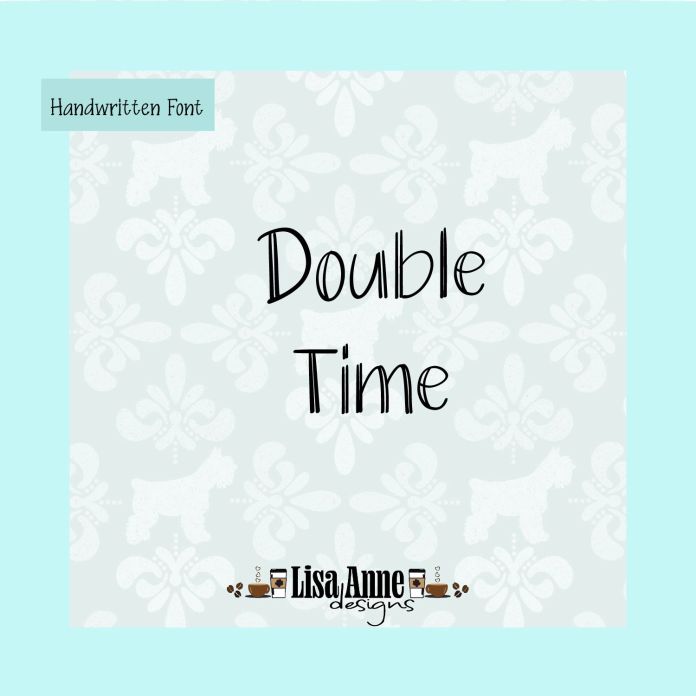
Say hello to Double Time, a fun and playful handwritten OTF font full of energy and charm! With a modern hand-drawn feel, this font is perfect for T-shirt designs, SVG projects, stickers, planners, social media graphics, greeting cards, and more. Its fun, casual vibe makes it a standout for both crafters and designers alike.